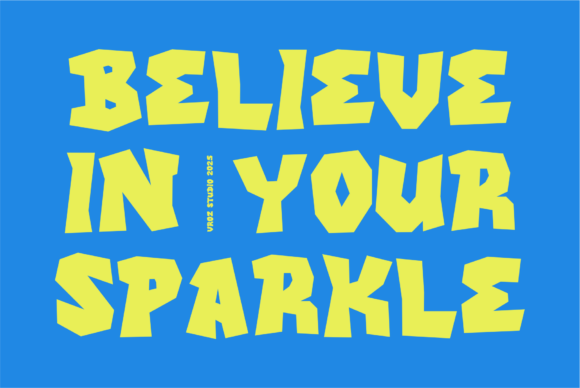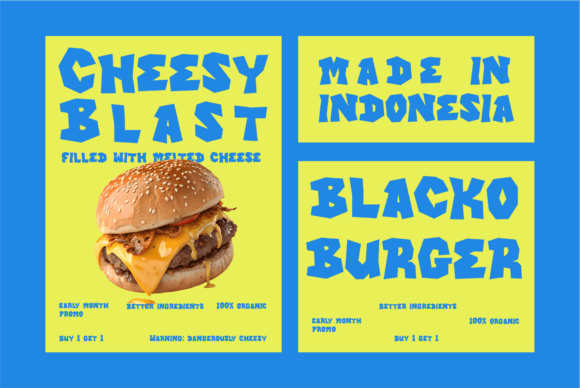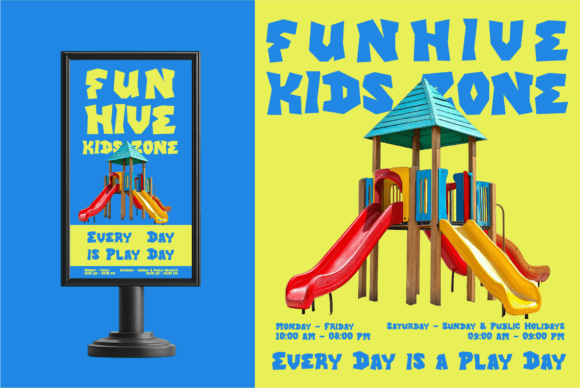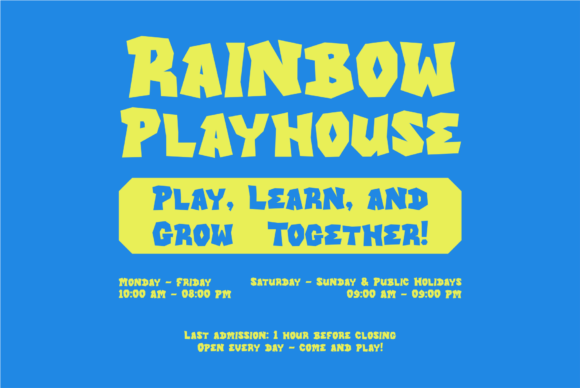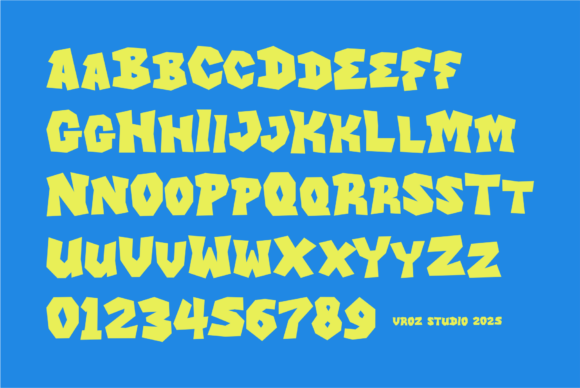
Introducing CHANKIZ: The Ultimate Bold & Blocky Kids Font
Are you looking for a font that can add a dash of fun and excitement to your kids’ creative projects? Look no further than CHANKIZ, a bold, blocky, and super fun display font designed specifically for kids’ creative worlds! This font is shaped like chunky building blocks with playful, sharp edges, making it full of energy and imagination.
The Perfect Font for Kids’ Creative Projects
CHANKIZ is perfect for a wide range of kids’ creative projects, including children’s books, cartoons, toy packaging, school projects, posters, games, YouTube thumbnails, and anything that needs a fun and bold touch. Its thick, brick-like letters and lively style make it an ideal choice for designers and crafters who want to create engaging and kid-friendly content.
Key Features of CHANKIZ
- Bold and Blocky Design: CHANKIZ features a bold and blocky design that is reminiscent of chunky building blocks.
- Playful and Sharp Edges: The font has playful and sharp edges that add to its energetic and imaginative feel.
- Thick and Brick-like Letters: The thick, brick-like letters of CHANKIZ make it perfect for creating fun and bold designs.
- Lively and Cheerful Style: The font has a lively and cheerful style that is sure to add a dash of excitement to any kids’ creative project.
Why Choose CHANKIZ?
So, why choose CHANKIZ for your kids’ creative projects? Here are just a few reasons:
- Perfect for Kids’ Content: CHANKIZ is designed specifically for kids’ creative worlds, making it the perfect choice for children’s books, cartoons, toy packaging, and more.
- Easy to Read: Despite its bold and blocky design, CHANKIZ is easy to read, making it perfect for kids’ projects that require clear and legible text.
- Versatile: CHANKIZ can be used for a wide range of kids’ creative projects, from posters and games to YouTube thumbnails and school projects.
- Fun and Imaginative: The font’s playful and imaginative design is sure to add a dash of fun and excitement to any kids’ creative project.
How to Use CHANKIZ
Using CHANKIZ is easy! Here are a few tips to get you started:
- Pair it with Other Fonts: CHANKIZ can be paired with other fonts to create a unique and interesting design.
- Experiment with Colors: The font’s bold and blocky design makes it perfect for experimenting with different colors and color combinations.
- Add Texture and Patterns: CHANKIZ can be used with texture and patterns to add depth and interest to your design.
CHANKIZ is a bold, blocky, and super fun display font that is perfect for kids’ creative worlds! Its thick, brick-like letters and lively style make it an ideal choice for designers and crafters who want to create engaging and kid-friendly content. Whether you’re creating children’s books, cartoons, toy packaging, or school projects, CHANKIZ is sure to add a dash of fun and excitement to your design. So why wait? Download CHANKIZ today and start creating!